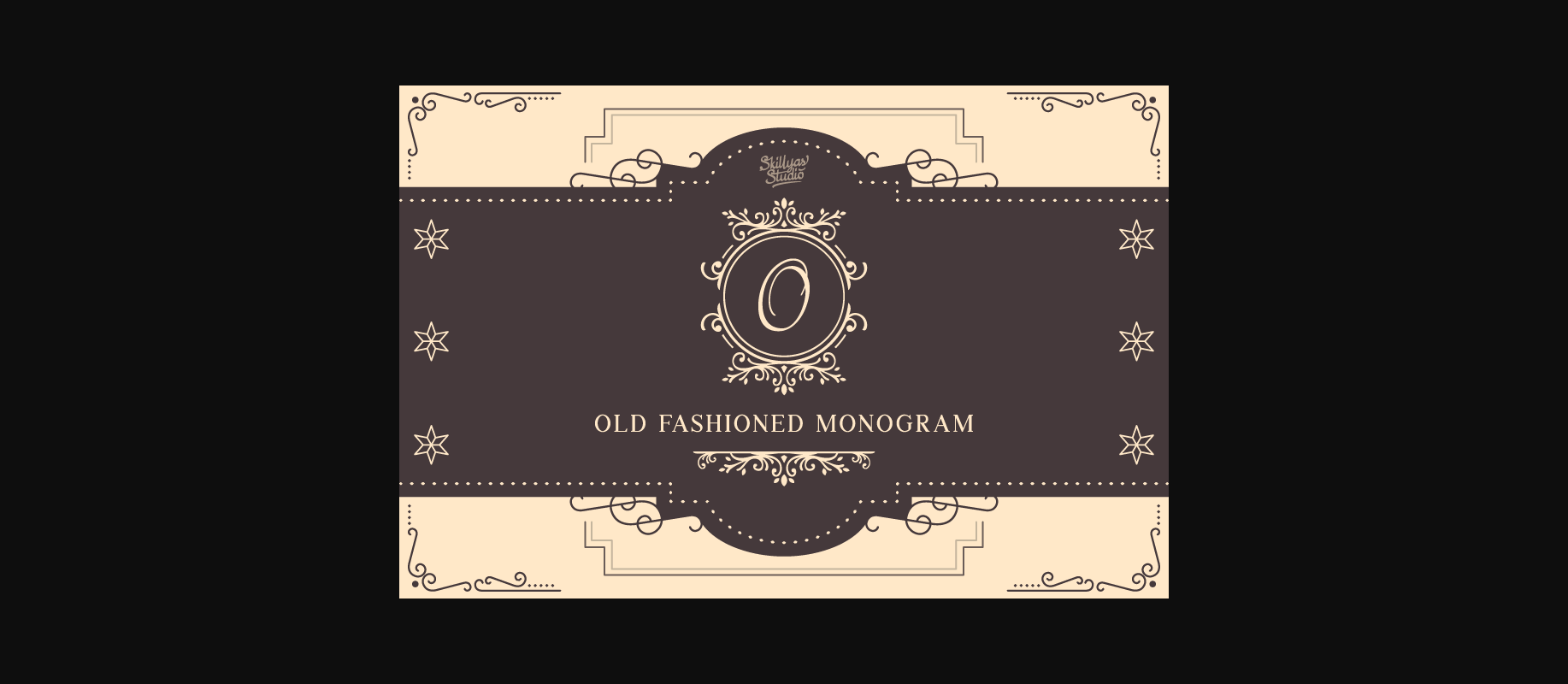
About Old Fashioned Monogram Font
Old Fashioned Monogram is a luxury and retro-looking decorative font, perfect for projects that need a stylish and old-fashioned vibe, with a modern twist. Use it for logos, apparel designs, marketing materials, product packaging, and so much more.